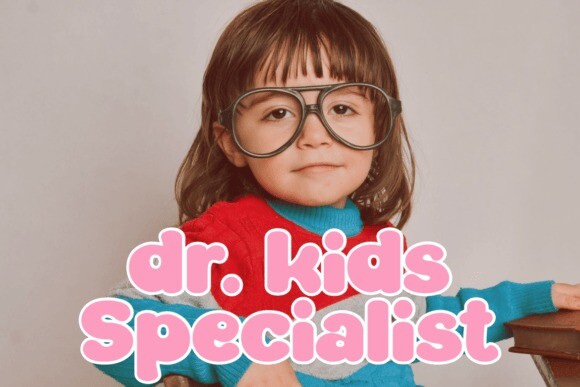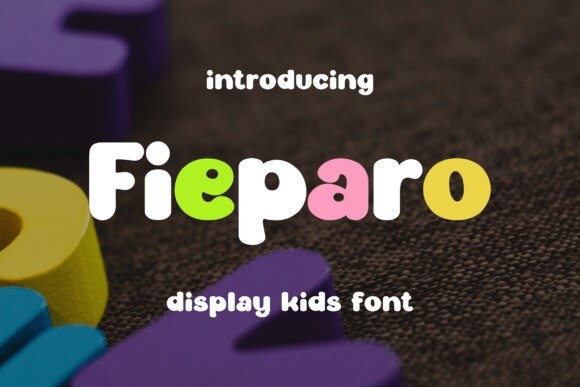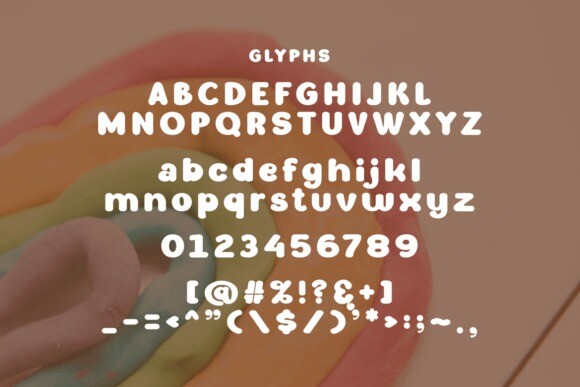
Fieparo Font
Fieparo Font is a childish display font. Its shape is suitable for creativity such as , crayons, writing names on packaging projects, scrapbooking, posters, back to school projects and so much more!